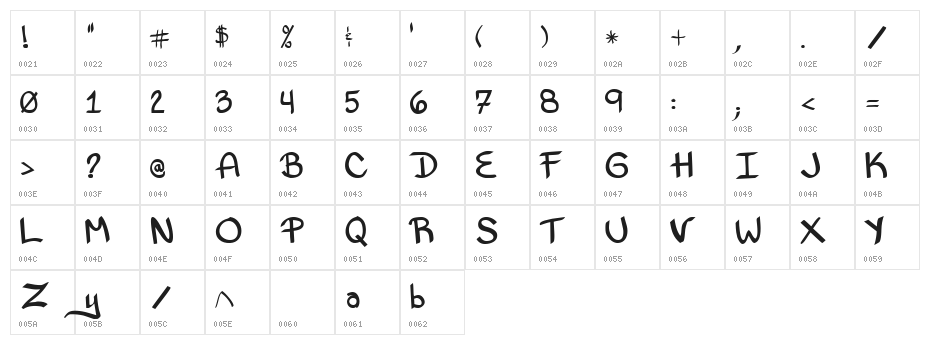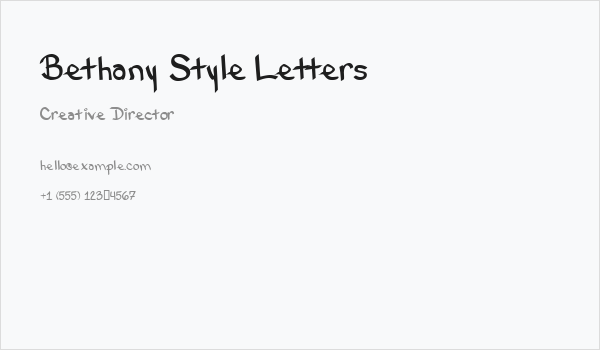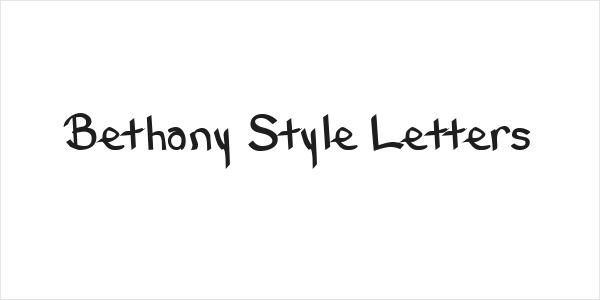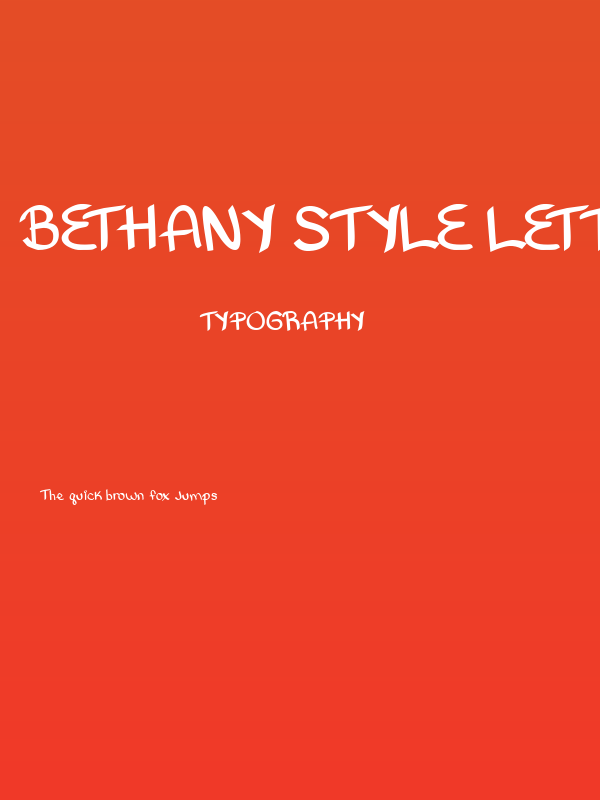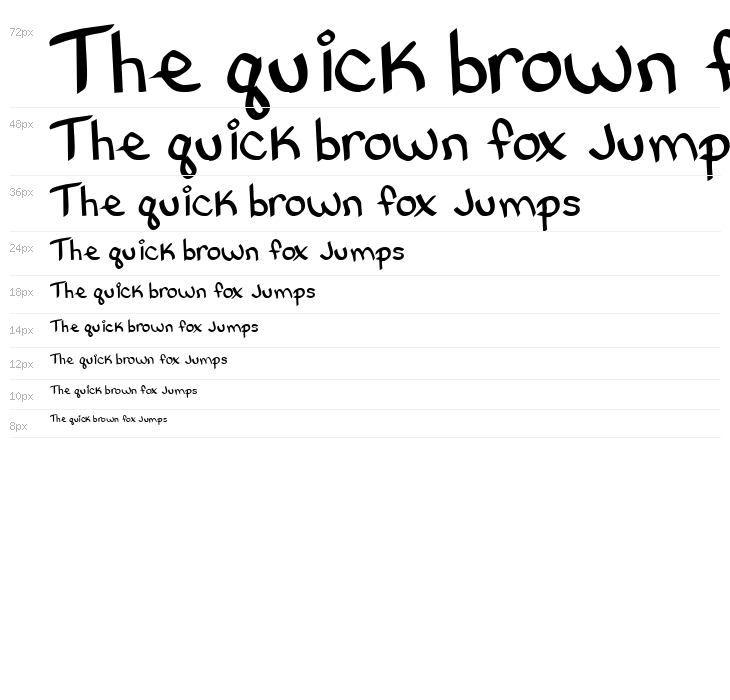
Bethany Style Letters Font
Bethany Style Letters Description
This font exhibits a playful and dynamic handwritten style, characterized by its bold and slightly irregular strokes. The uppercase letters are distinct with a slight slant, giving them a lively appearance. Lowercase letters maintain a consistent flow, enhancing readability while retaining a casual feel. The numbers are bold and clear, matching the overall style of the alphabet. Special characters are creatively designed, adding to the font's unique personality. This font is suitable for projects that require a fun and informal touch.
| Proposed Projects | Ideal for greeting cards, children's books, playful branding, and creative posters. |